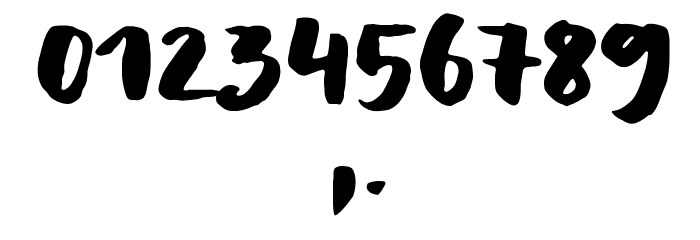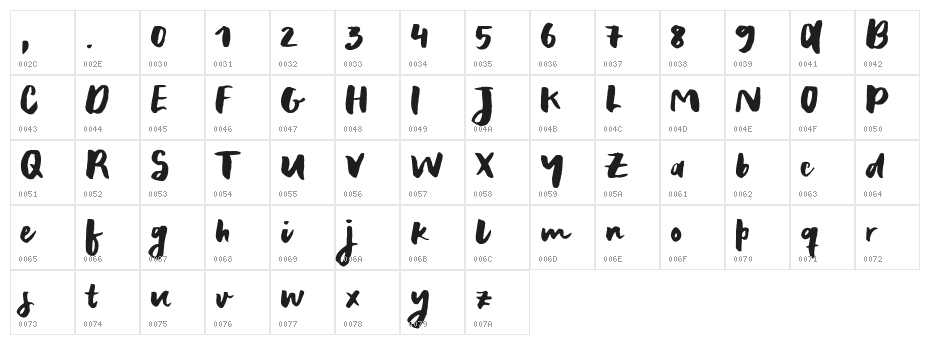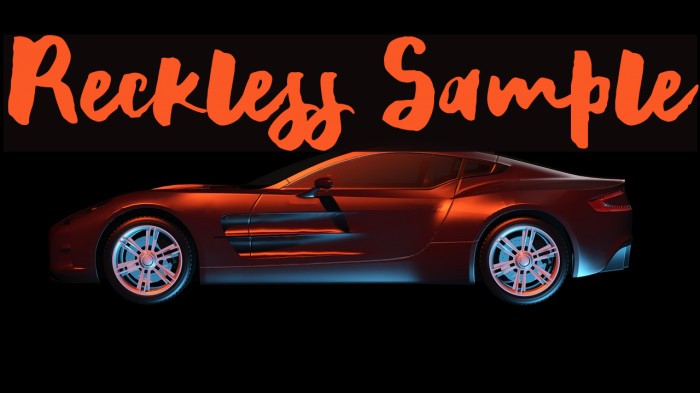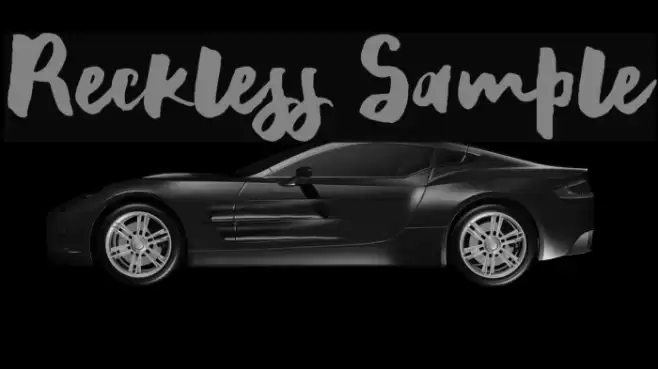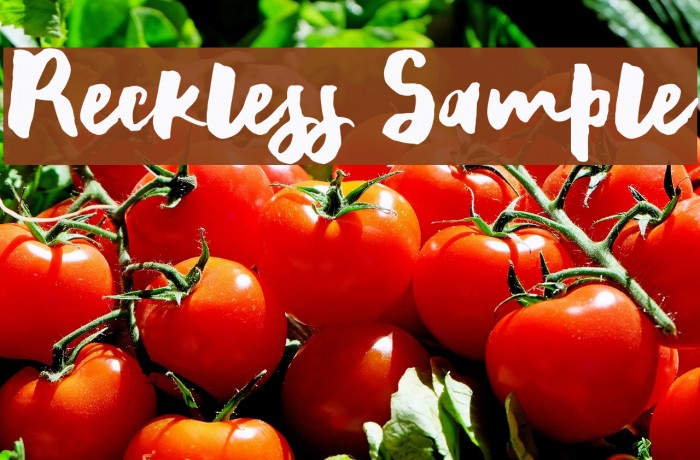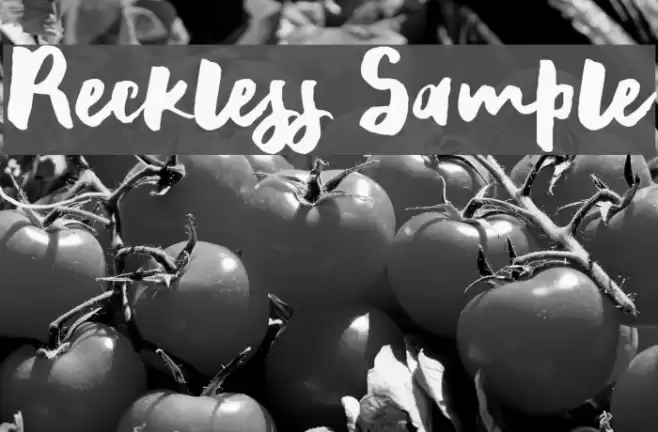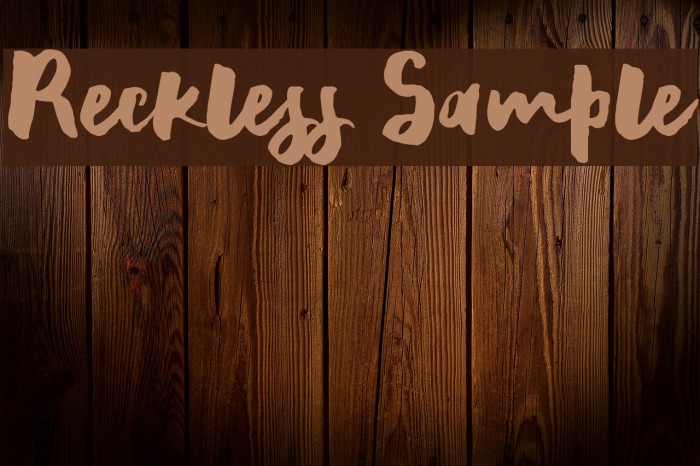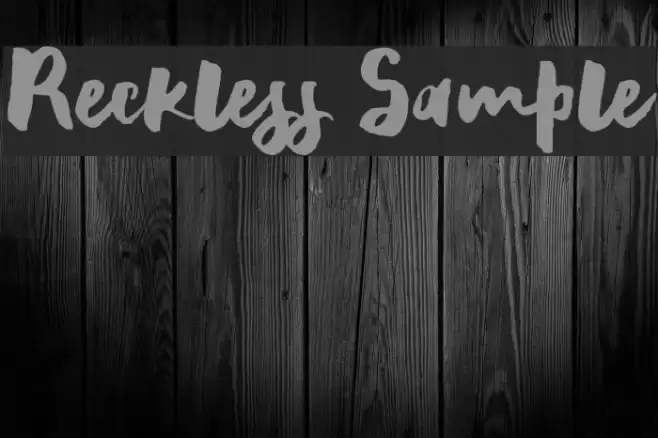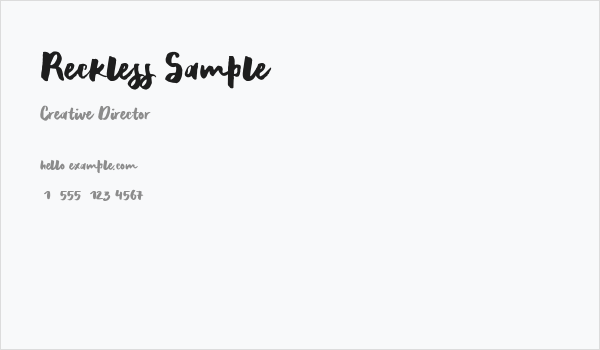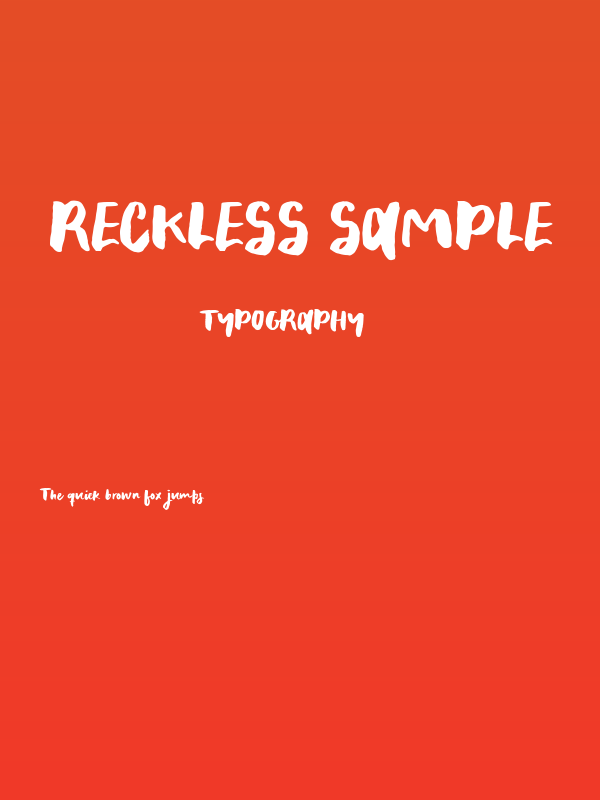
Reckless Sample Font
Reckless Sample Description
This font features a bold, expressive style with a hand-painted appearance. The characters are thick and have a slightly irregular form, giving them a lively and dynamic feel. The strokes are broad and fluid, with a noticeable brush-like texture that adds to its artistic charm. The uppercase and lowercase letters maintain a consistent weight, while the numbers and special characters follow the same bold and energetic design. This font is perfect for projects that require a personal, handcrafted touch, such as invitations, posters, or branding materials.
| Proposed Projects | Ideal for invitations, posters, branding, and any project needing a personal, artistic touch. |